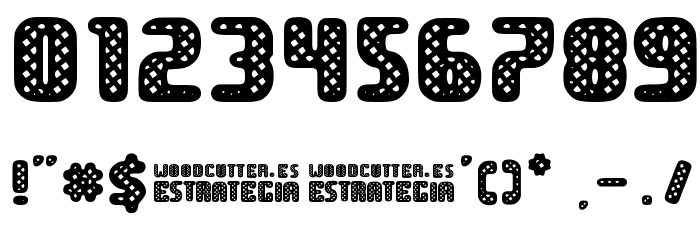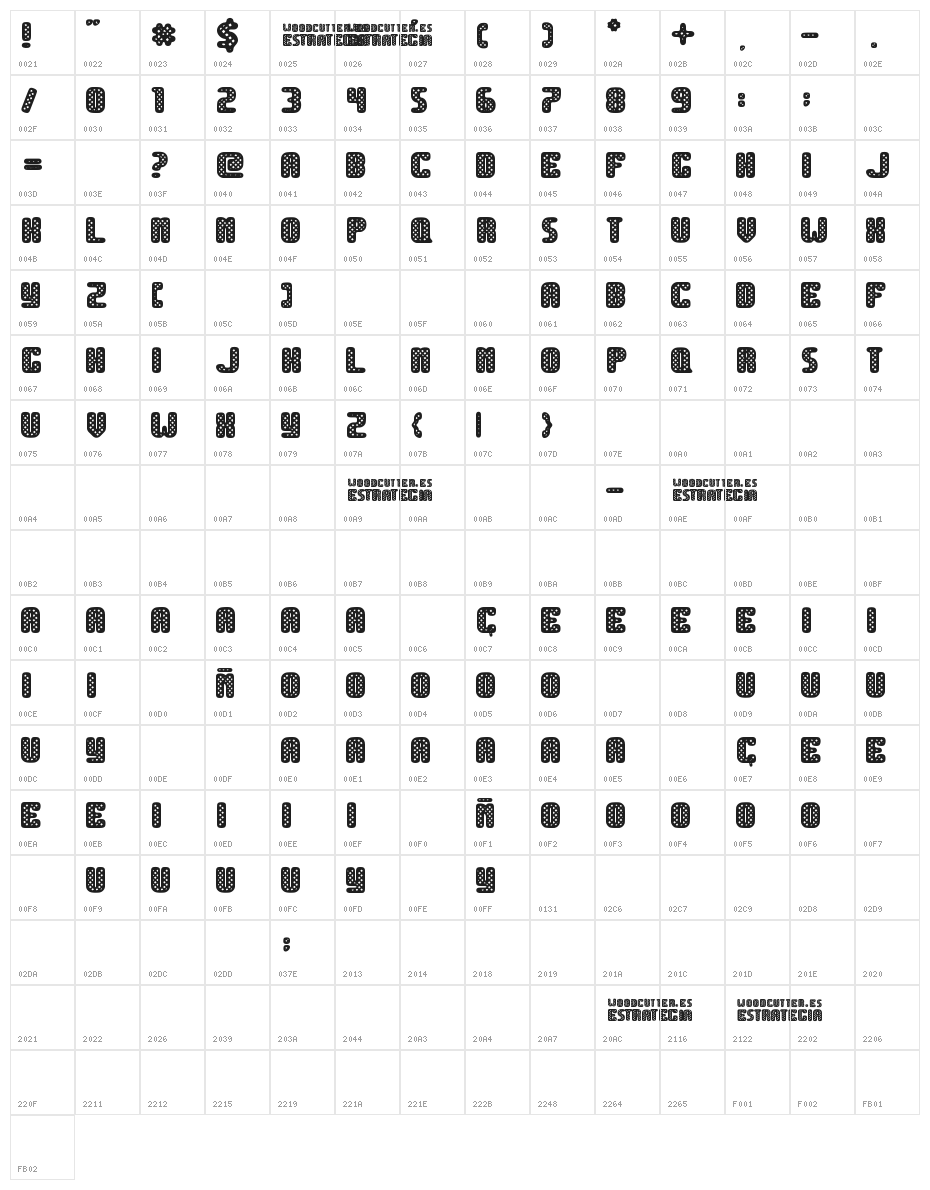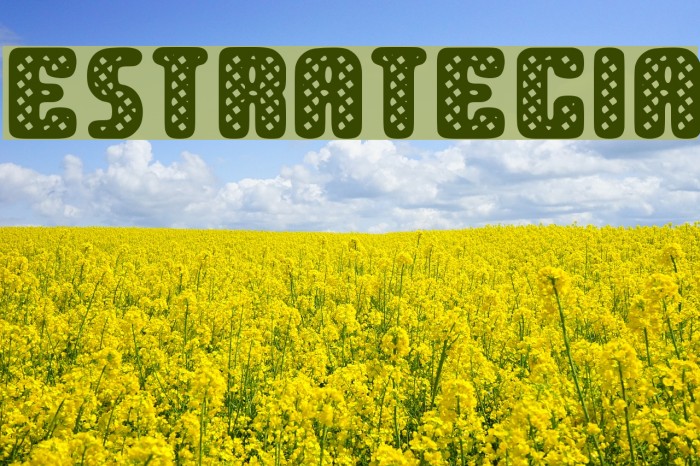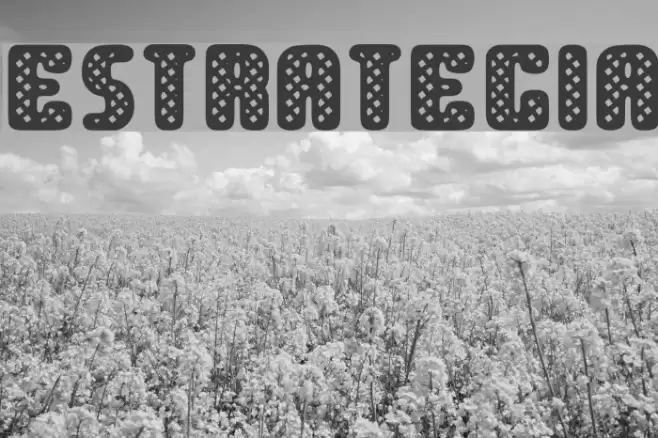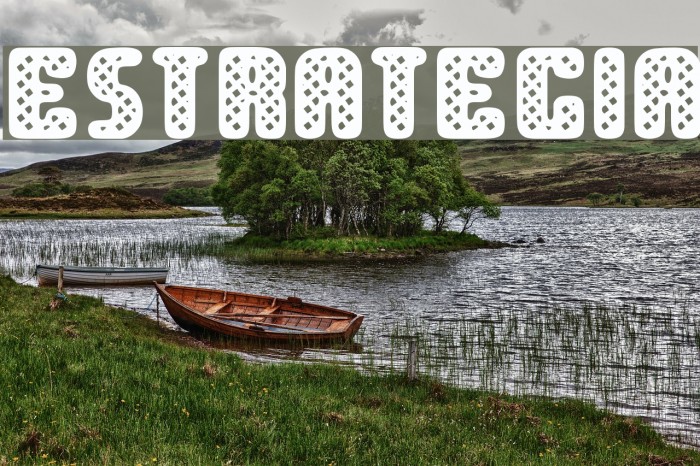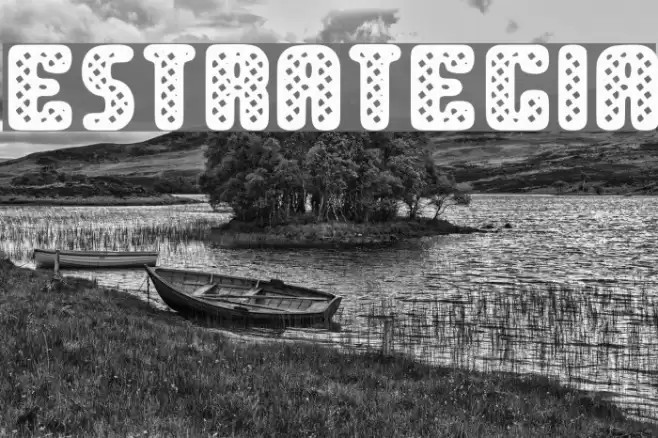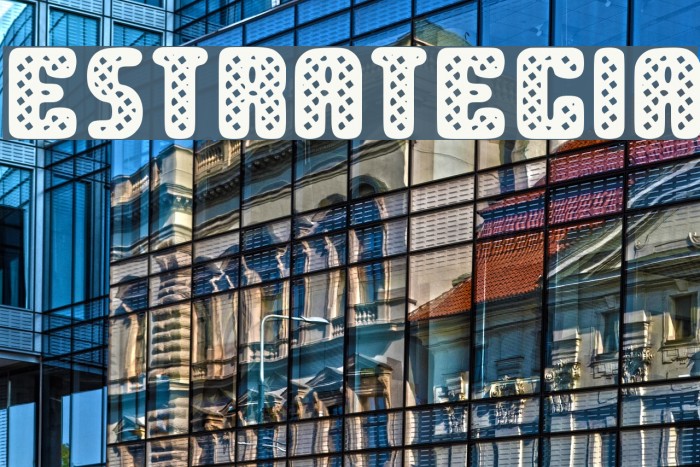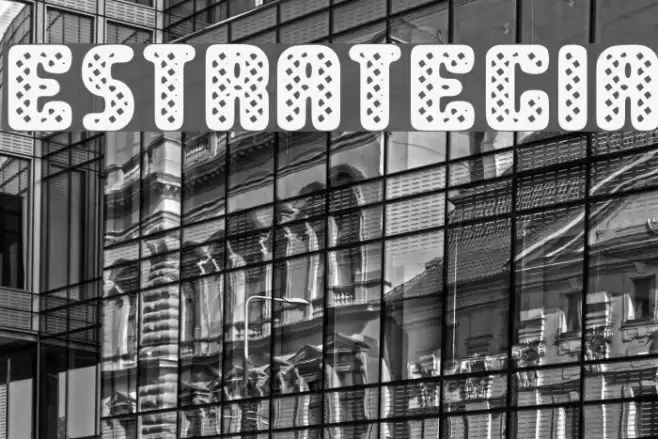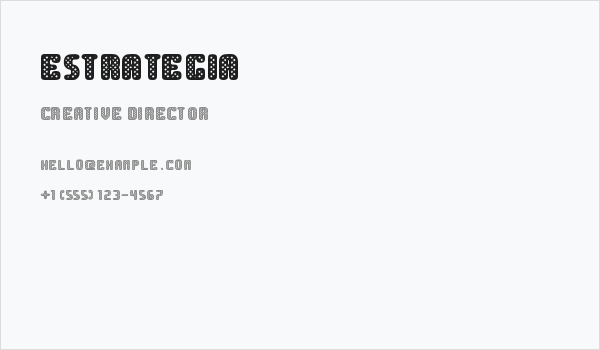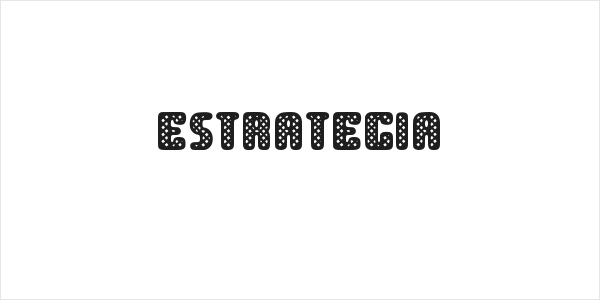
Estrategia Font
Estrategia Description
This font features a bold and playful design with a unique pattern of cut-out dots within each character, creating a visually striking effect. The letters are rounded and have a consistent thickness, giving them a sturdy and modern appearance. The playful nature of the font is enhanced by its decorative elements, making it suitable for creative and eye-catching designs. The numbers and special characters follow the same dotted pattern, ensuring a cohesive look across all elements. This font is perfect for projects that require a fun and engaging aesthetic.